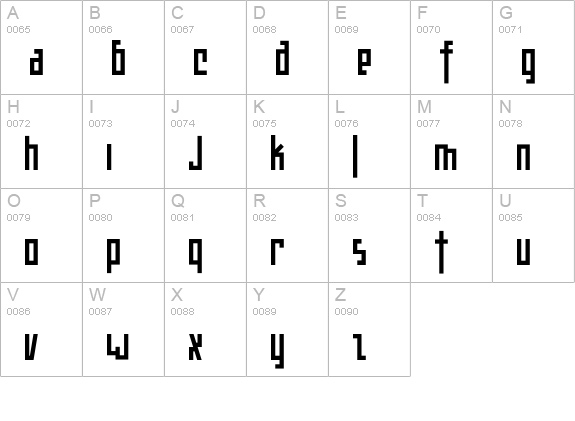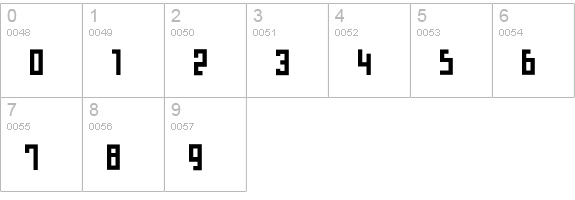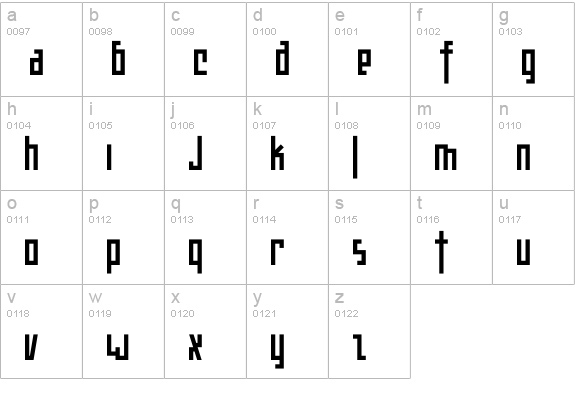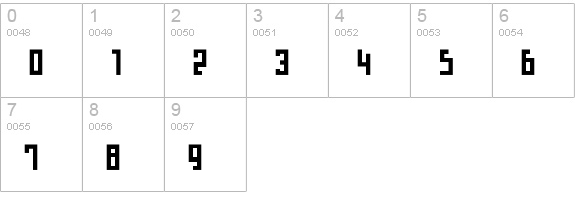
Teknobe Font Details
Introducing Teknobe, a sleek and modern font that effortlessly blends technology with a touch of sophistication. This versatile typeface is perfect for giving your designs a futuristic edge, whether it's for a tech startup, a cutting-edge magazine, or an innovative website. With its clean lines and geometric shapes, Teknobe exudes a sense of precision and accuracy. Its bold and robust letterforms make a strong statement, while still maintaining a sense of elegance and professionalism. This font is designed to captivate and engage viewers, ensuring that your message is delivered with impact. What sets Teknobe apart is not just its remarkable design, but also the fact that it is free. Yes, you read that right - this remarkable font is freely available to download at FontsMarket.com. Now you can elevate your designs without breaking the bank. Whether you're a student, a freelancer, or a design enthusiast, Teknobe offers you the opportunity to create stunning visuals without any cost. Downloading Teknobe is a breeze, and once you have it in your font library, the possibilities are endless. Use it for headlines, logos, posters, or any other creative project that requires a modern and contemporary feel. Its versatility ensures that it can be seamlessly integrated into a wide range of design styles and themes. So why wait? Take advantage of this incredible opportunity to enhance your designs with Teknobe. Download it for free at FontsMarket.com and experience the power of this unique and captivating font. Let Teknobe be your secret weapon in creating visually stunning and impactful designs that leave a lasting impression.